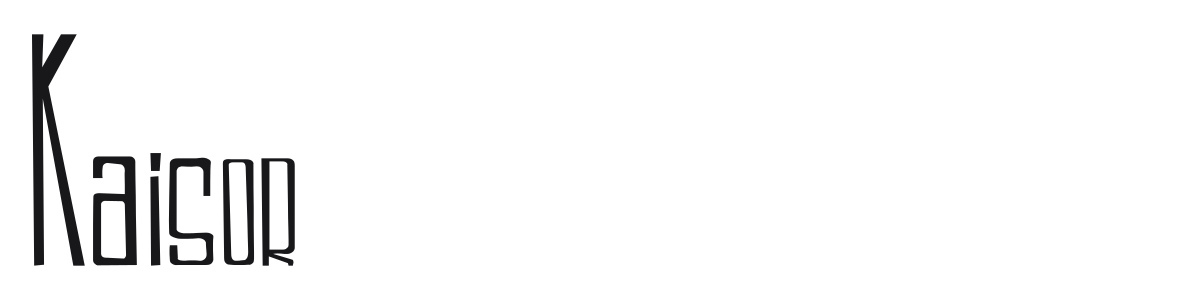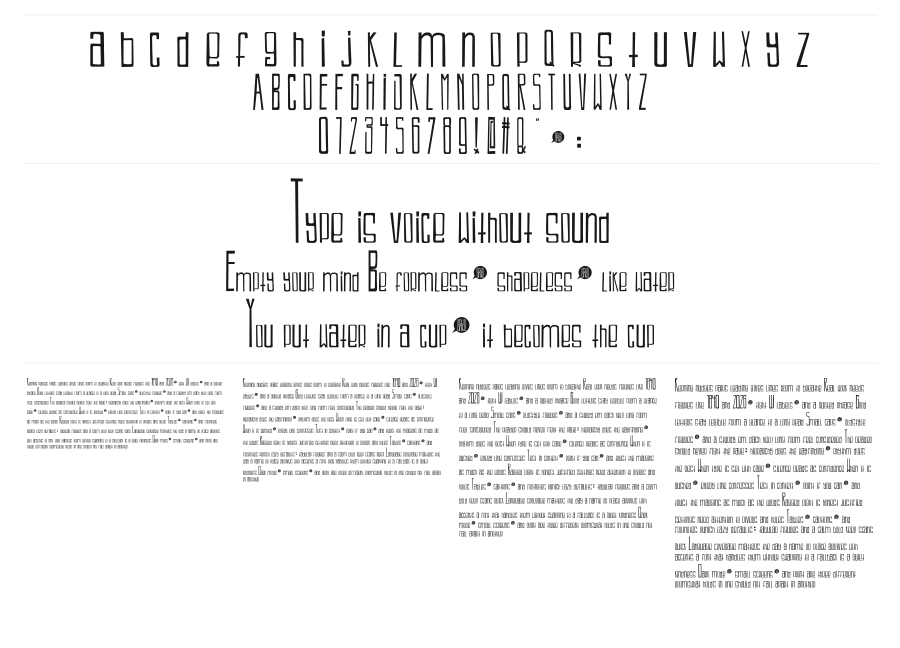
Kaisor
Kaisor is an extremely condensed geometric sans with each character built inside a tall rectangular frame with softly rounded corners. The letterforms feature lifted strokes and unusual junctions that give the font a modular, almost grid-constructed quality. It commands attention at large sizes and carries a strong architectural personality.